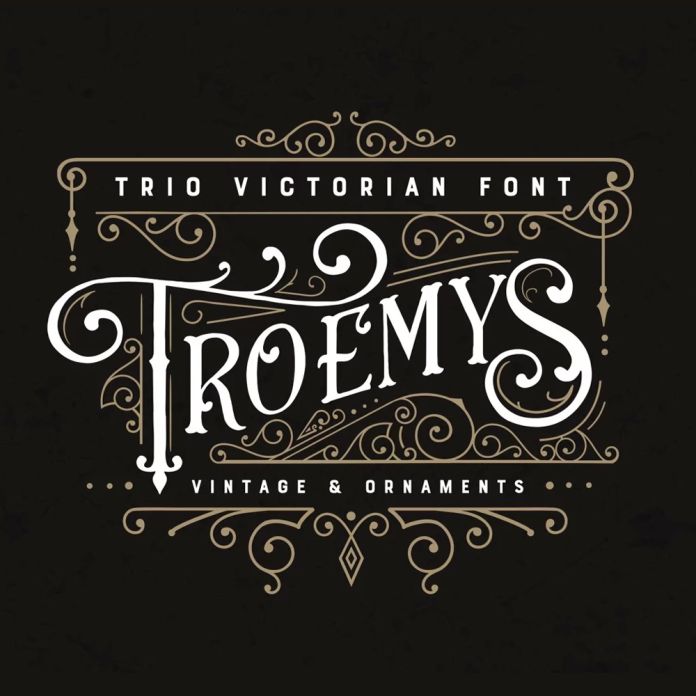
Troemys font
Troemys Font Trio – Vintage Elegance with a Decorative Twist
Troemys is a beautifully crafted trio font inspired by vintage and Victorian aesthetics.
Designed to bring sophistication and ornate detail to your projects, Troemys includes:
1. Troemys Regular – A classic serif font with a refined, old-world touch.
2. Troemys Deco – A more embellished version, featuring delicate flourishes and stylish accents.
3. Troemys Ornaments – A full set of elegant frames, badges, clipart, and catchwords, available in both font format (OTF/TTF)